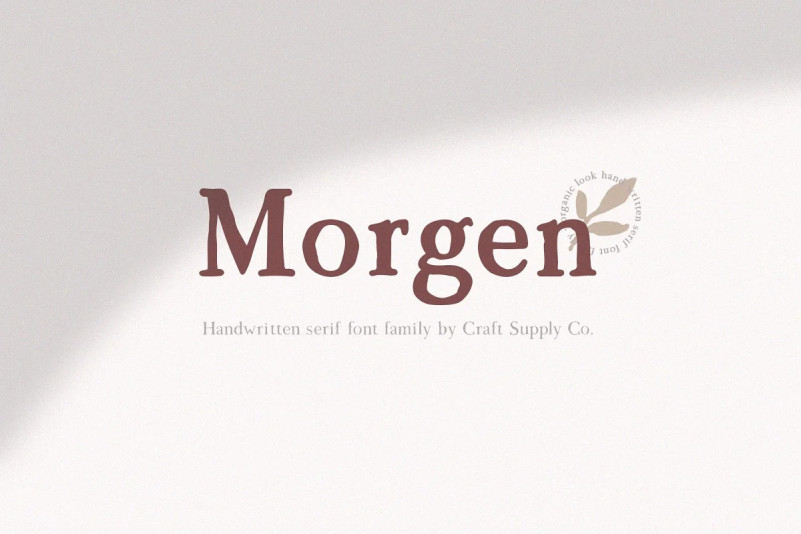
Morgen Font
Morgen Font – Handwritten Serif Font Family. It can be used to create almost all types of design projects like print materials. Just use your imagination and your project will become more alive and look great than ever with Morgen – Handwritten Serif Font Family.
You want to make a greeting card or a package design, or even a brand identity, craft design, any DIY project, book title, wedding font, pop vintage design, retro design or any purpose to make your art / design project look pretty and trendy? Feel free to play with this fonts!